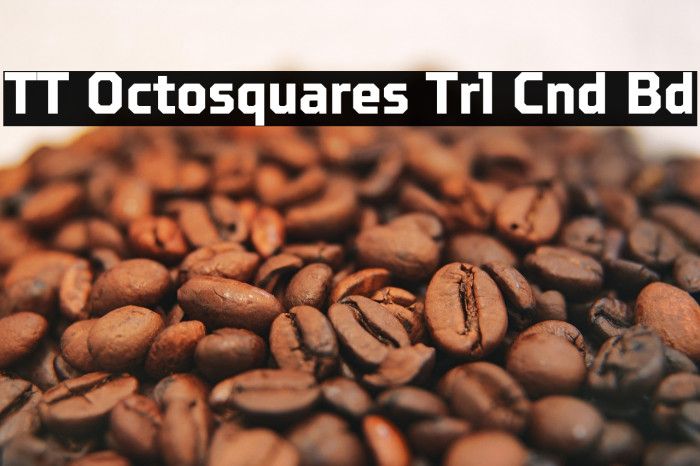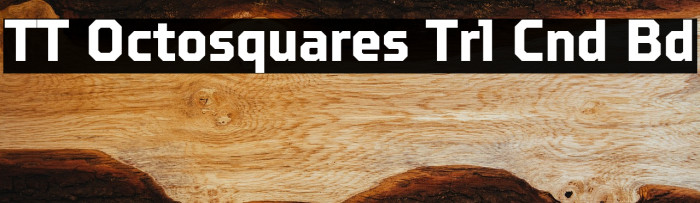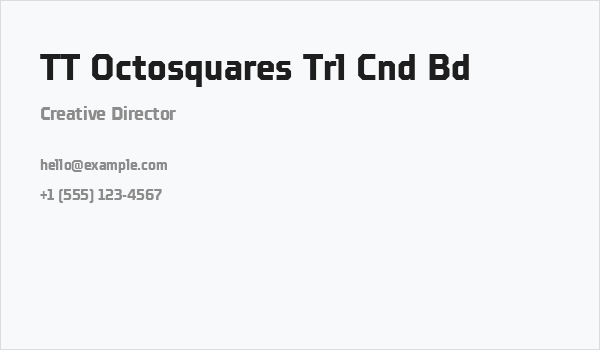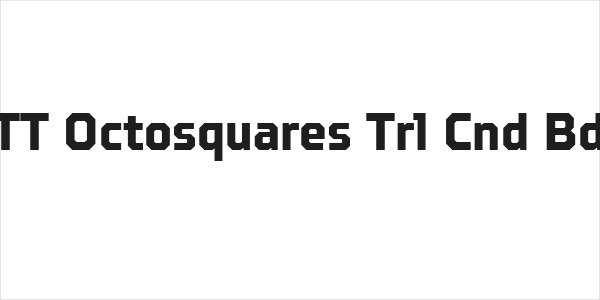
TT Octosquares Trl Cnd Bd Font
TT Octosquares Trl Cnd Bd Description
This font features a bold, geometric design with a distinctly modern aesthetic. The characters are constructed with sharp, angular lines and a consistent stroke width, giving it a strong and assertive presence. The uppercase and lowercase letters maintain a uniformity that enhances readability while retaining a unique style. The numerals and special characters are designed to match the boldness of the alphabet, making them suitable for impactful displays. The condensed width of the characters allows for efficient use of space, making it ideal for headlines and titles where space is limited.
| Proposed Projects | Ideal for branding, posters, headlines, and any project requiring a strong visual impact. |